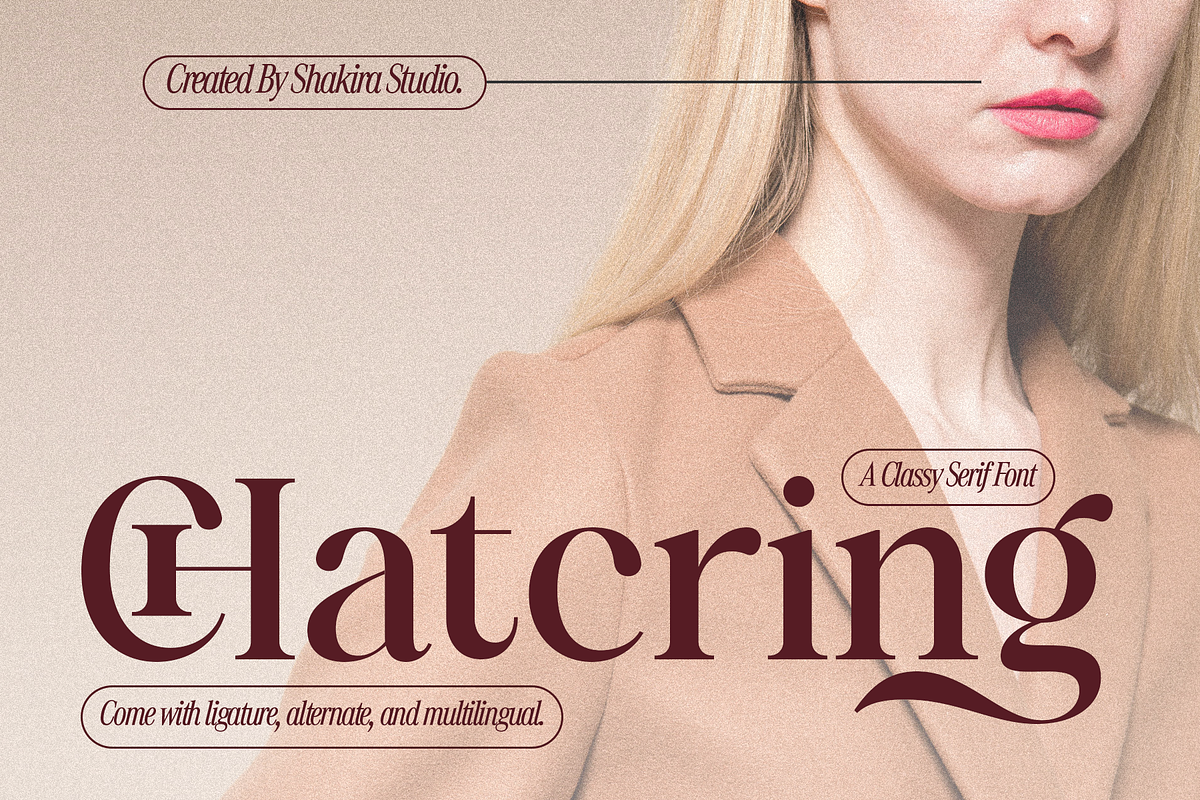
Chatcring - Classy Serif Font Free Download
Chatcring - Classy Serif Font Free Download is an elegant and sophisticated typeface designed to elevate your most refined projects. With its sharp serifs, balanced spacing, and timeless appeal, this font is ideal for luxury branding, editorial layouts, fashion lookbooks, wedding invitations, and high-end packaging.
Chatcring - Classy Serif Font Free Download delivers a polished and professional look that commands attention without being loud. Its classic structure combined with a modern edge makes it versatile enough for both print and digital designs. Add a touch of sophistication to your next project—download it now and explore the timeless beauty of Chatcring.